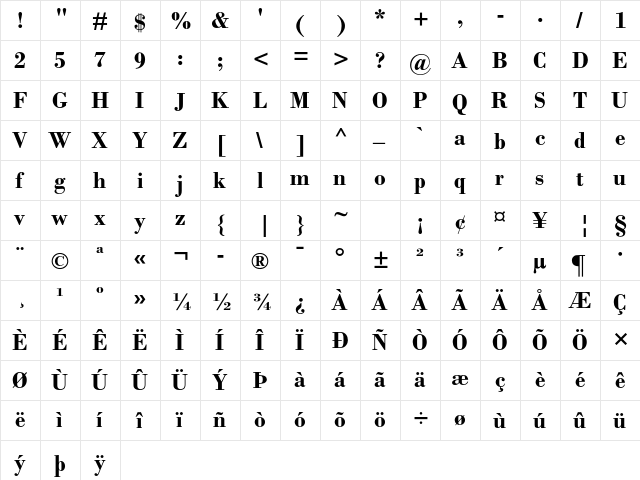
Bodoni MT Std Bold
Design Context for Bodoni MT Std Typeface
Bodoni MT Std is a composed and adaptable typeface that performs quietly and consistently across a wide range of design contexts. Its bold stroke weight gives it real presence on the page.
Pro Tip: Use Bodoni MT Std in both headline and body roles to test its range before committing to a single application.